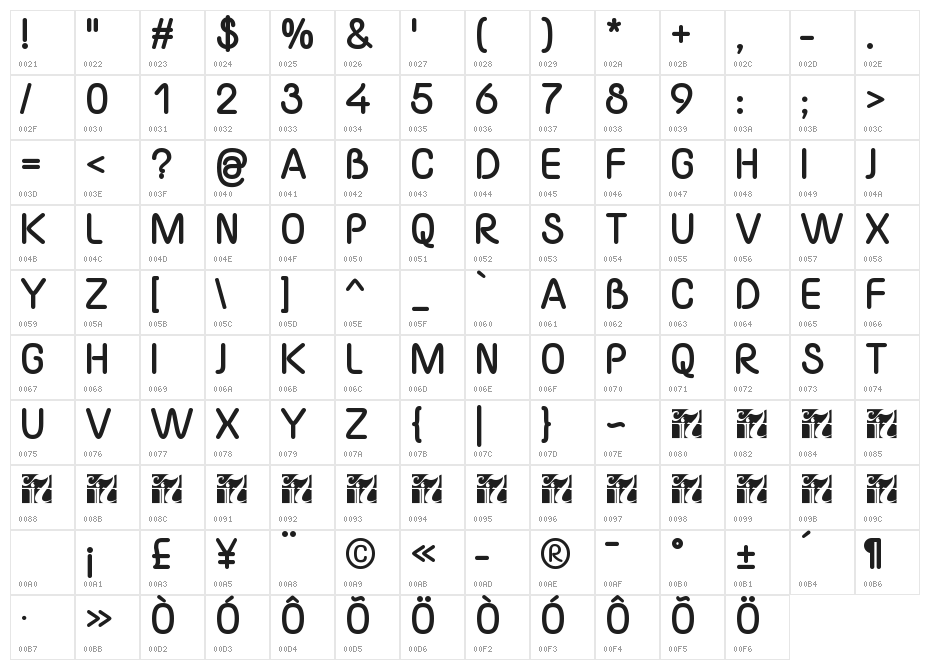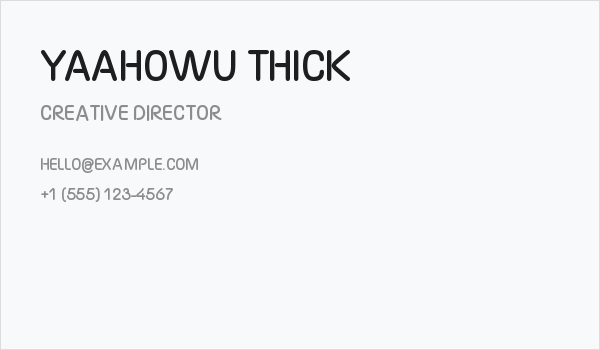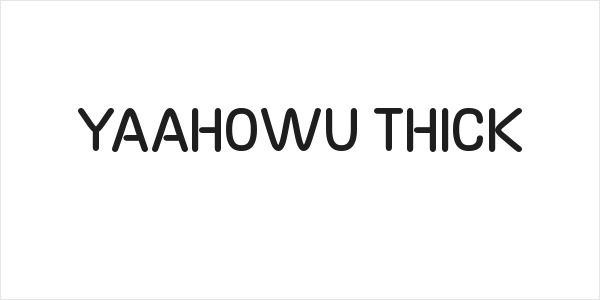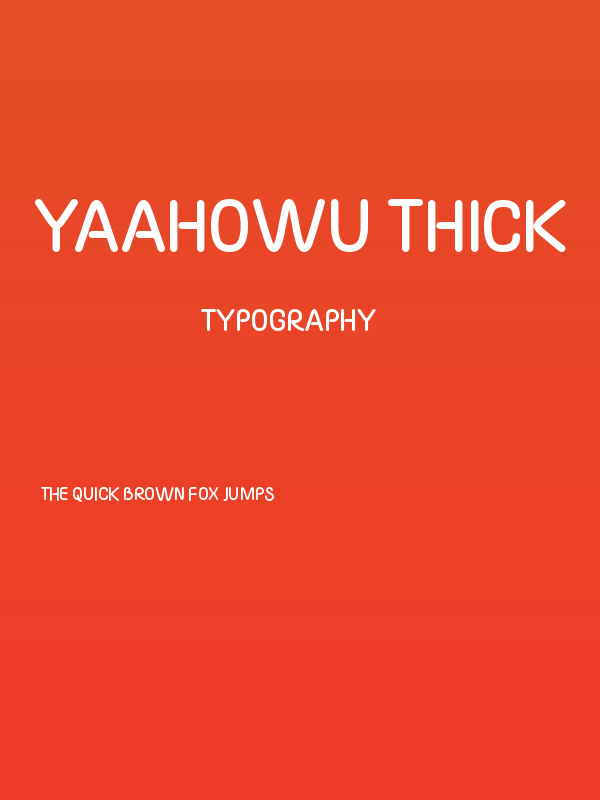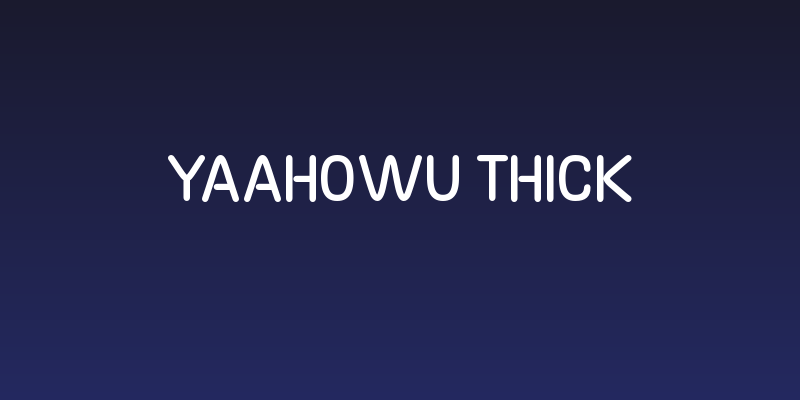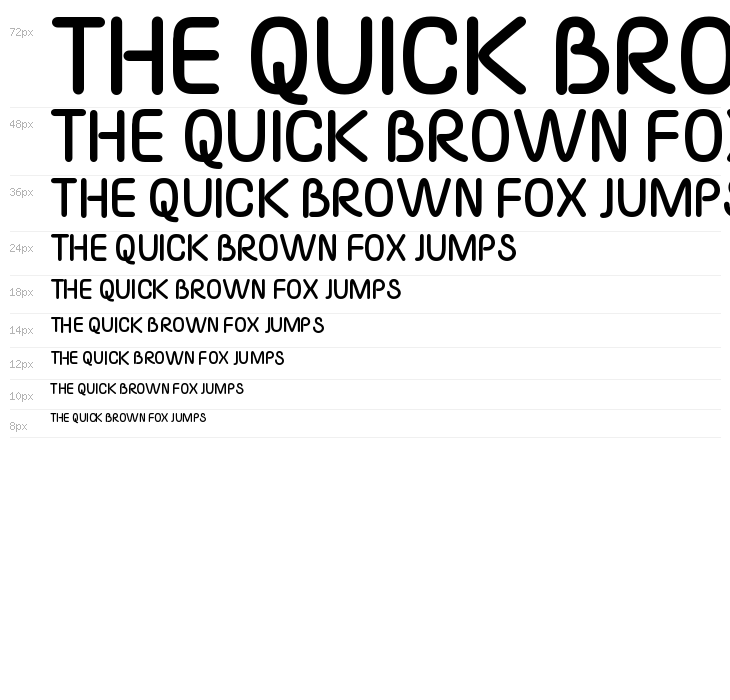
Yaahowu Thick Font
Yaahowu Thick Description
This font features a bold, rounded style with smooth curves and a friendly appearance. The characters are evenly weighted, providing a consistent look across both uppercase and lowercase letters. The numbers and special characters maintain the same rounded aesthetic, ensuring uniformity throughout. Its design is clean and modern, making it suitable for a variety of applications. The rounded edges give it a soft, approachable feel, while the boldness ensures readability and impact. This font is versatile, working well in both digital and print formats, and is particularly effective in settings where a warm, inviting tone is desired.
| Proposed Projects | Ideal for branding, advertising, children's books, and digital interfaces where a friendly and approachable look is desired. |